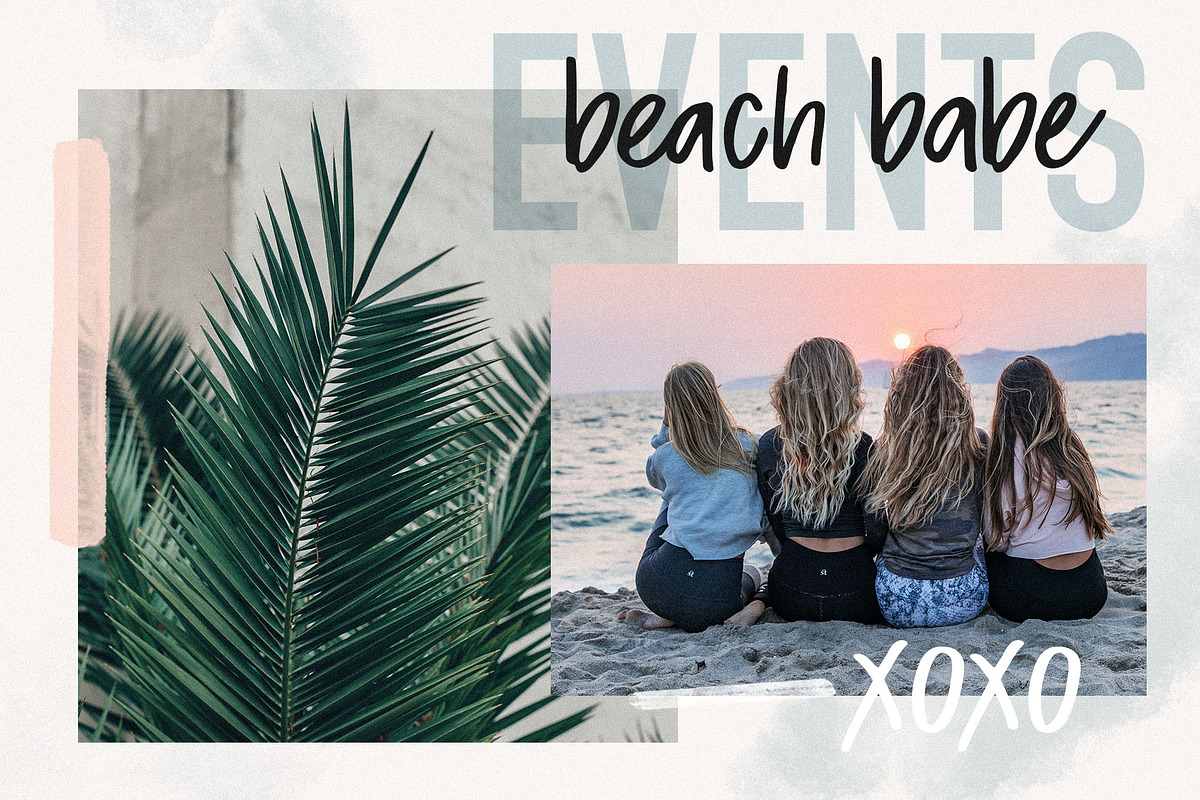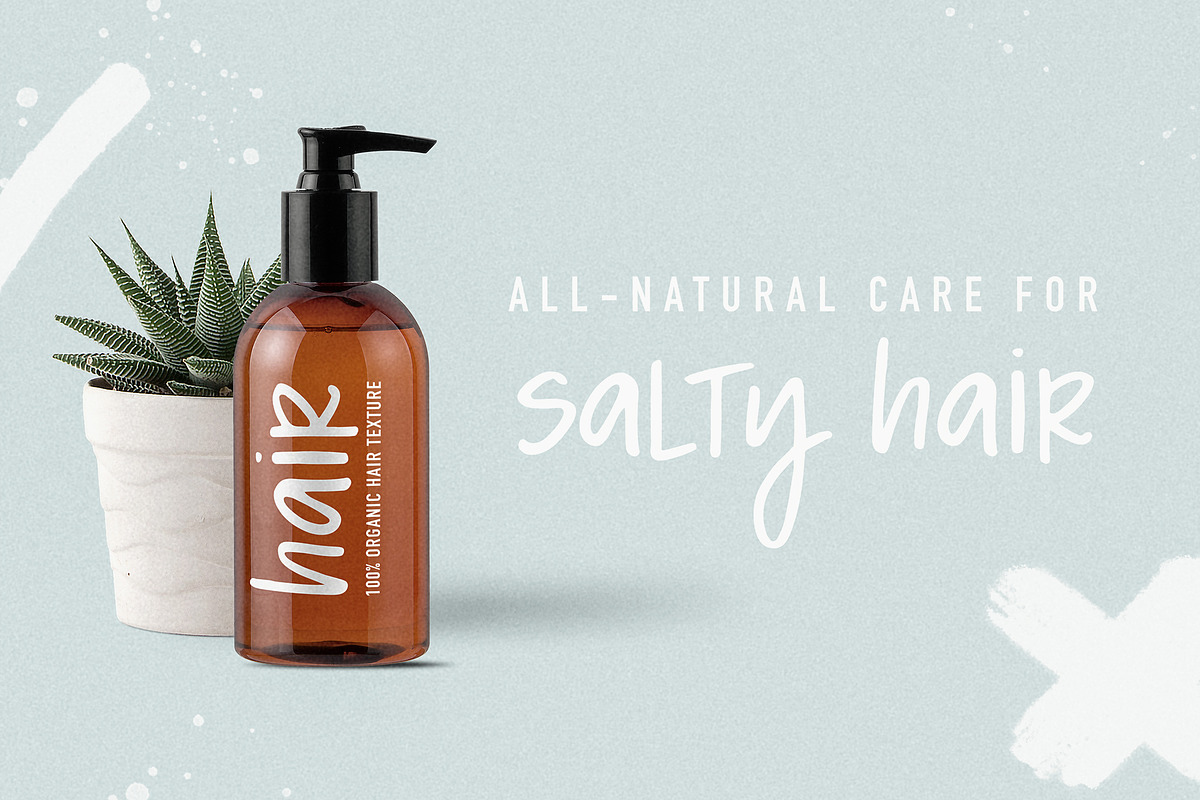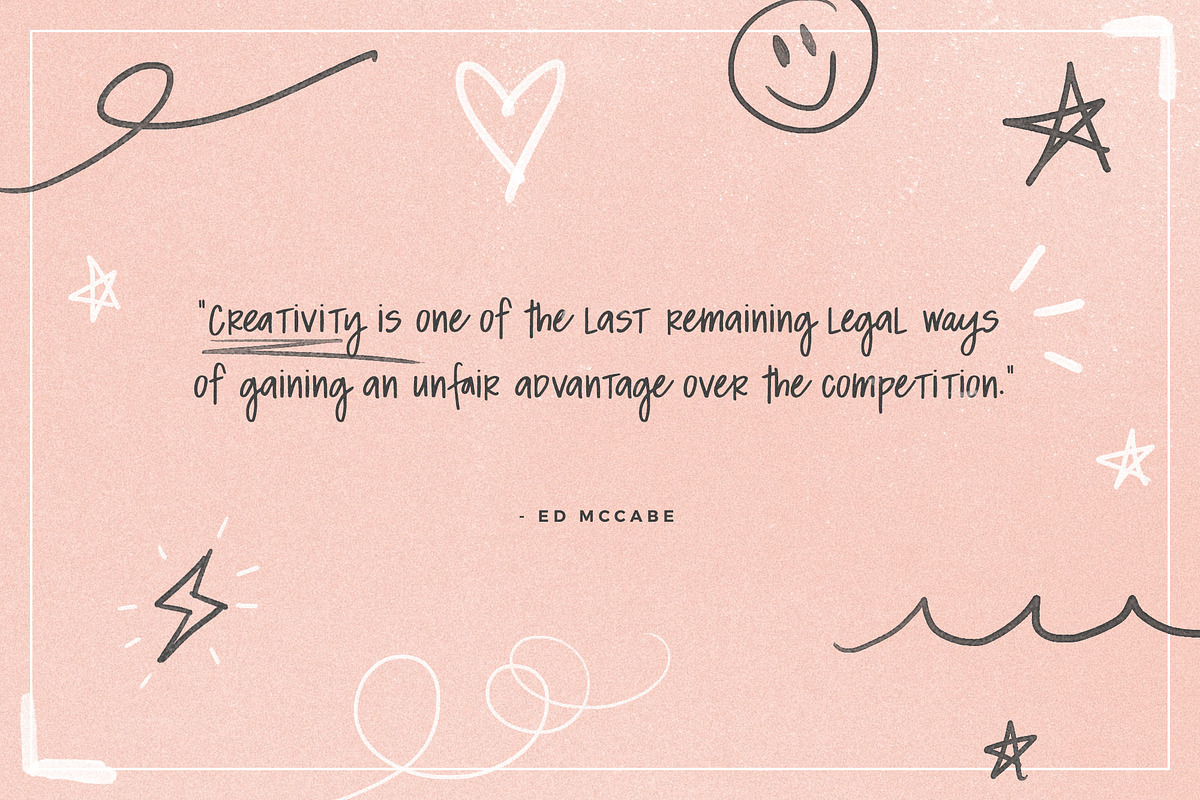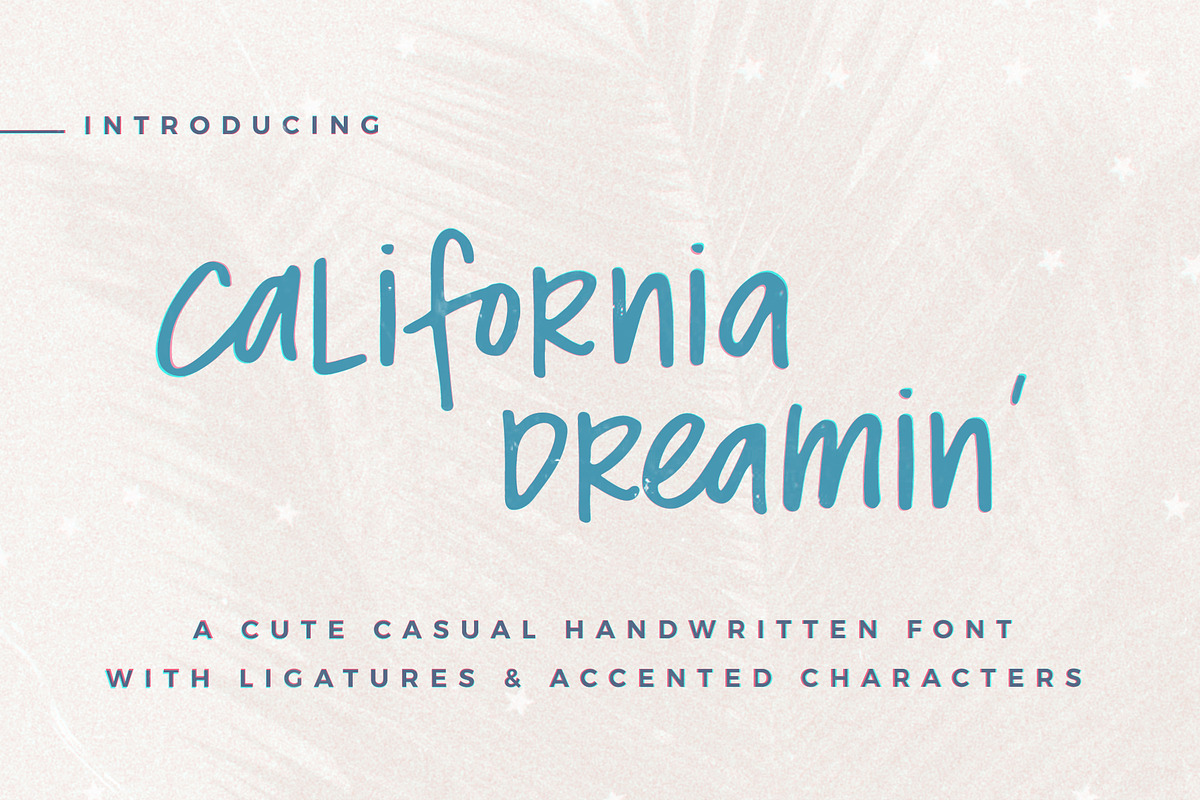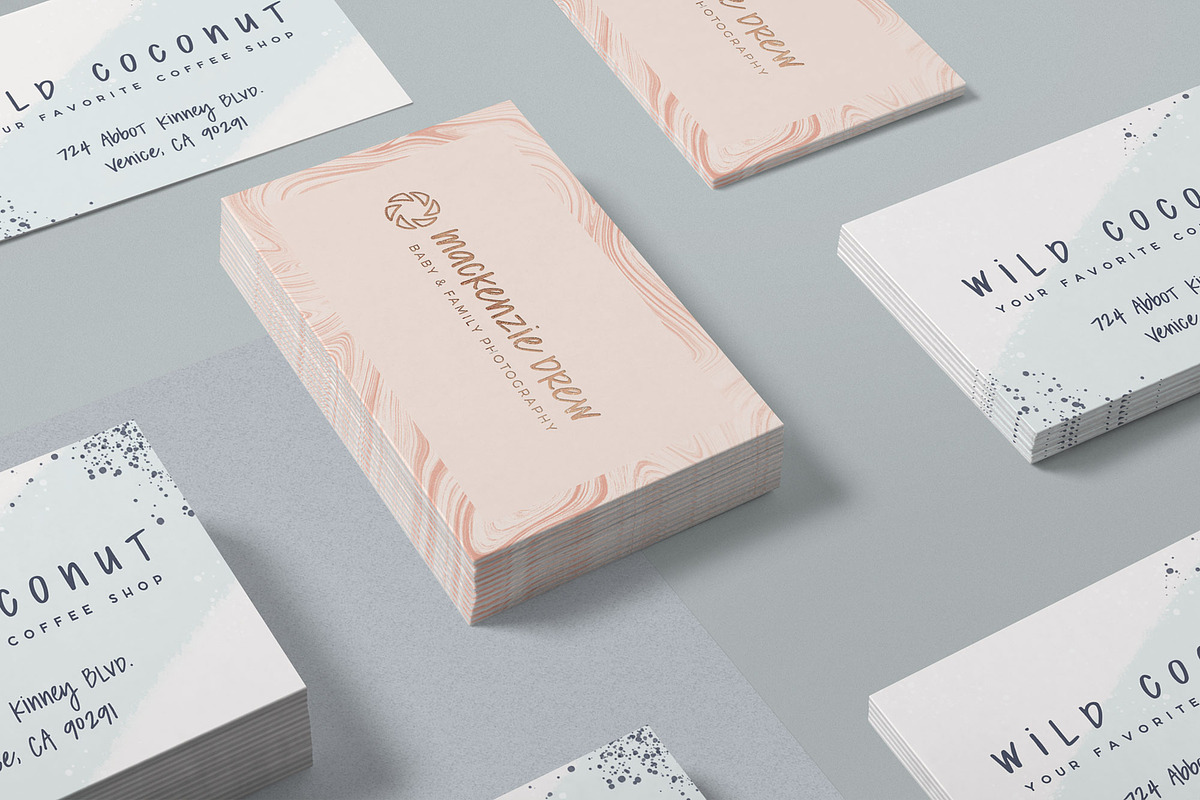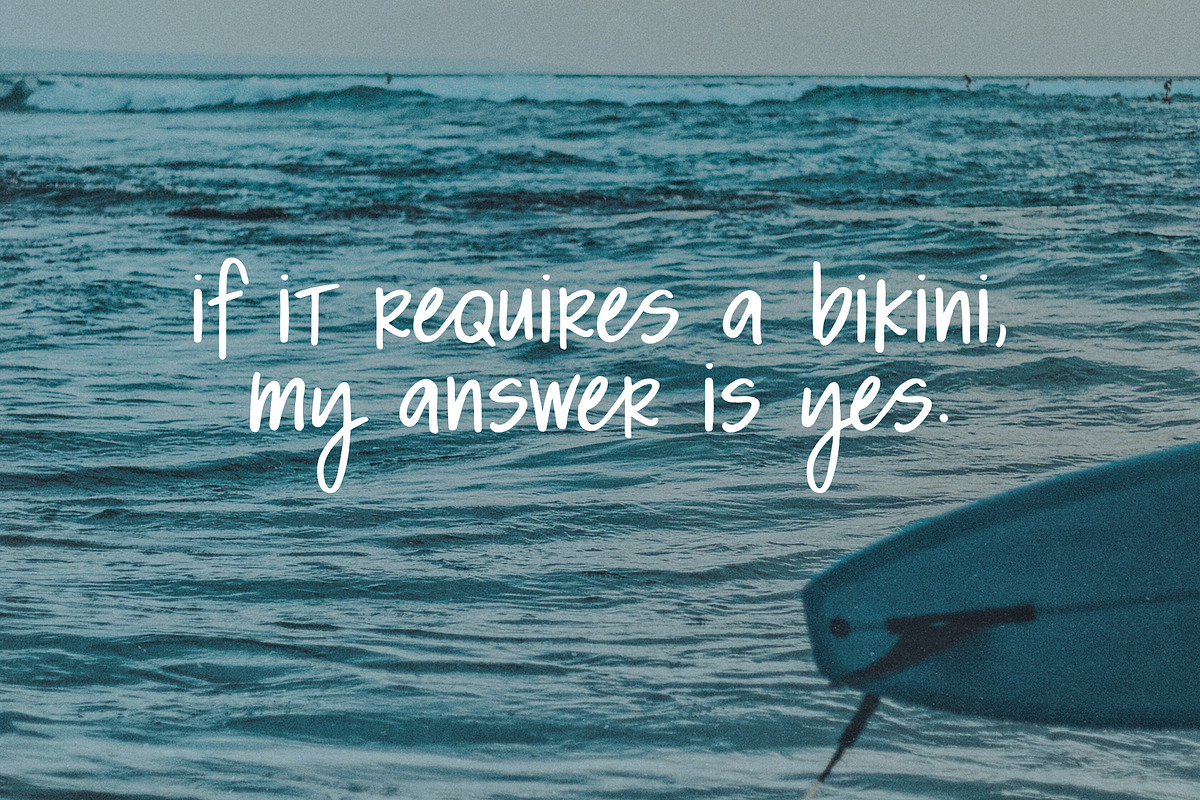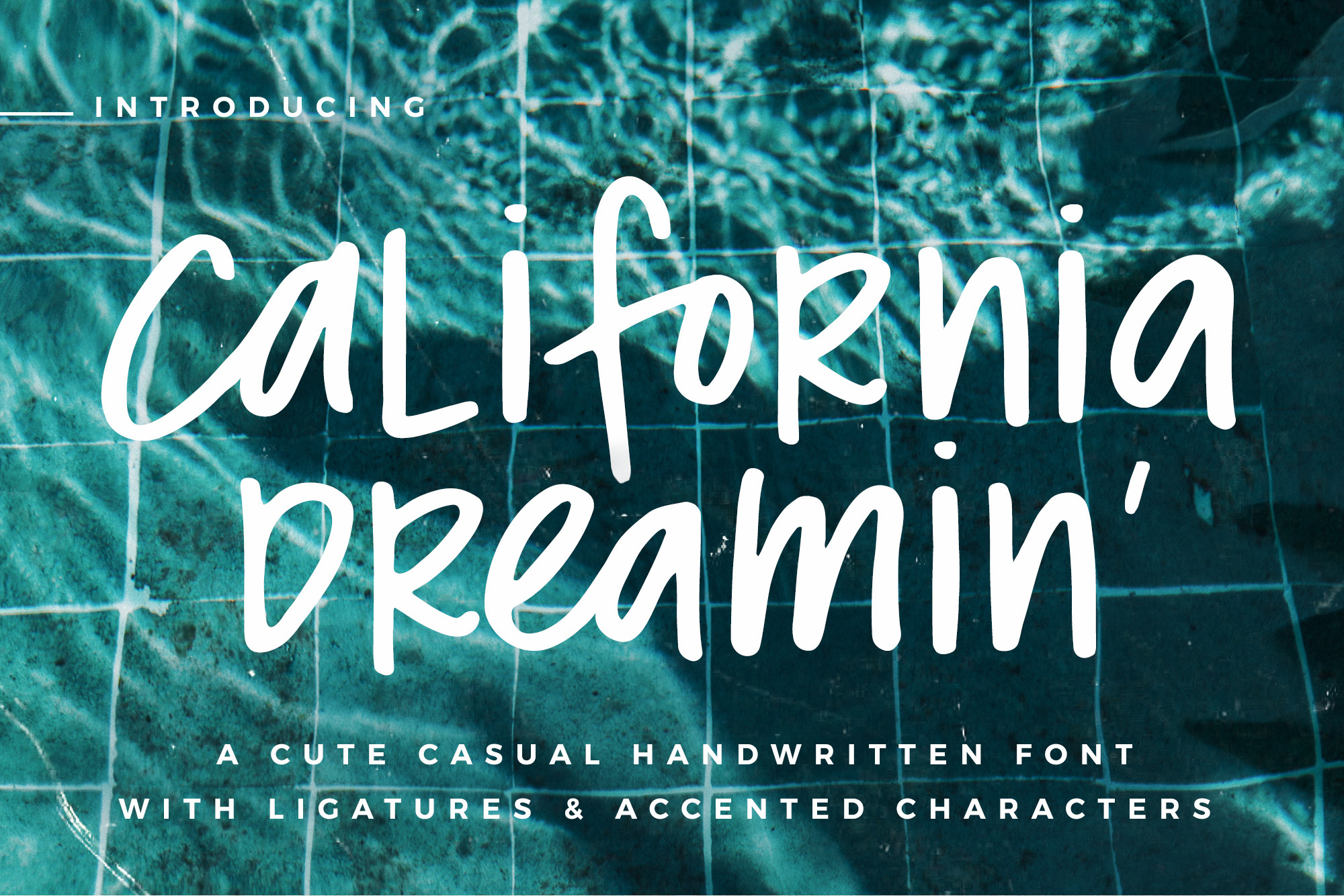
California Dreamin' Font
California Dreamin' is the font you've been looking for!! A little more causal than a traditional script, and with lots of personality.
Lemme give you some background... I LOVE including my handwriting in my designs. I think it gives a personal touch to branding, social media, quotes, etc. butttt tbh I get a little lazy now and then. I really wanted a font that looked like my handwriting, so I could use it without the hassle of pens, paper, writing, scanning, and all that. 🤷♀️
And so with that goal in mind, California Dreamin' was born after a lot of long hours in Illustrator and watching all the font making videos I could get my hands on. It's that perfect mix of cute and cool, and a bit funky (I don't exactly know why I like my lowercase "r" to look like an uppercase one, but I just DO, ok?) It reminds me of the beach, and sunshine, and palm trees... and all I can hope for is that one day it saves you a little time when you don't feel like whippin' your pens out but you need a little of that California vibe. 🌴☀️🌊
- Over 200 characters, including caps, lowercase, numbers, symbols, ligatures, & alternates.
- Multilingual support with accented characters (check preview to make sure your language is supported)
- I spent a LONG time on the spacing and kerning, so it should flow like real handwriting.